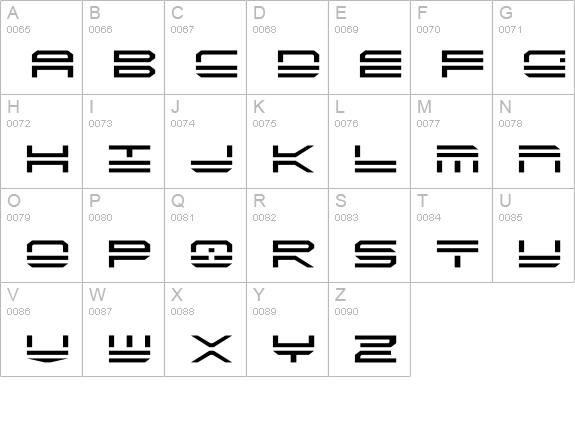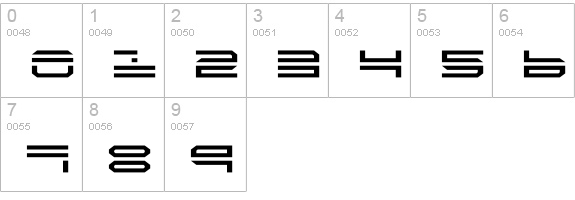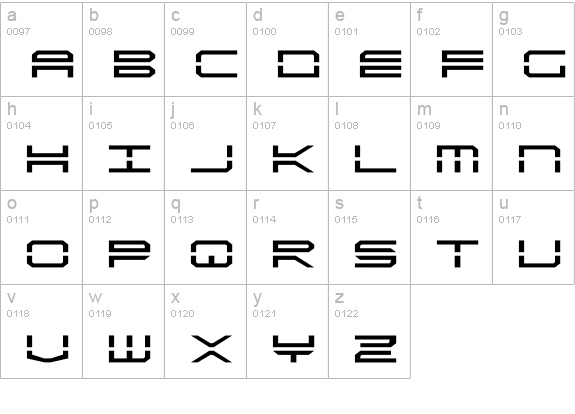
QuickStrike font is a bold and modern typeface that exudes confidence and dynamism. With its sleek and sharp letterforms, this font captures attention and adds a touch of professionalism to any design project. Whether it's for a logo, branding materials, or even social media graphics, QuickStrike font is the perfect choice to make a lasting impression. What sets QuickStrike font apart is not just its striking aesthetics, but also its accessibility. This font is freely available to download at FontsMarket.com, making it an incredible resource for designers and creatives alike. By offering QuickStrike font for free, the creators have ensured that everyone can have access to this exceptional typeface, regardless of their budget or design needs. The versatility of QuickStrike font is another reason to love it. It works seamlessly across a wide range of applications, from digital to print. Its clean lines and distinctive character shapes make it highly legible, even at smaller sizes. Whether you're creating a headline or body text, QuickStrike font delivers clarity and impact. In terms of style, QuickStrike font strikes the perfect balance between modernity and timelessness. It manages to feel contemporary while still maintaining a classic appeal, making it a versatile choice for various design projects. From fashion to technology, QuickStrike font is adaptable and can be tailored to suit any industry or theme. With QuickStrike font, you can elevate your designs and make them stand out from the crowd. Its bold and commanding presence paired with its accessibility make it an invaluable asset for any designer. So why wait? Visit FontsMarket.com today and download QuickStrike font for free, and unlock a world of creative possibilities.